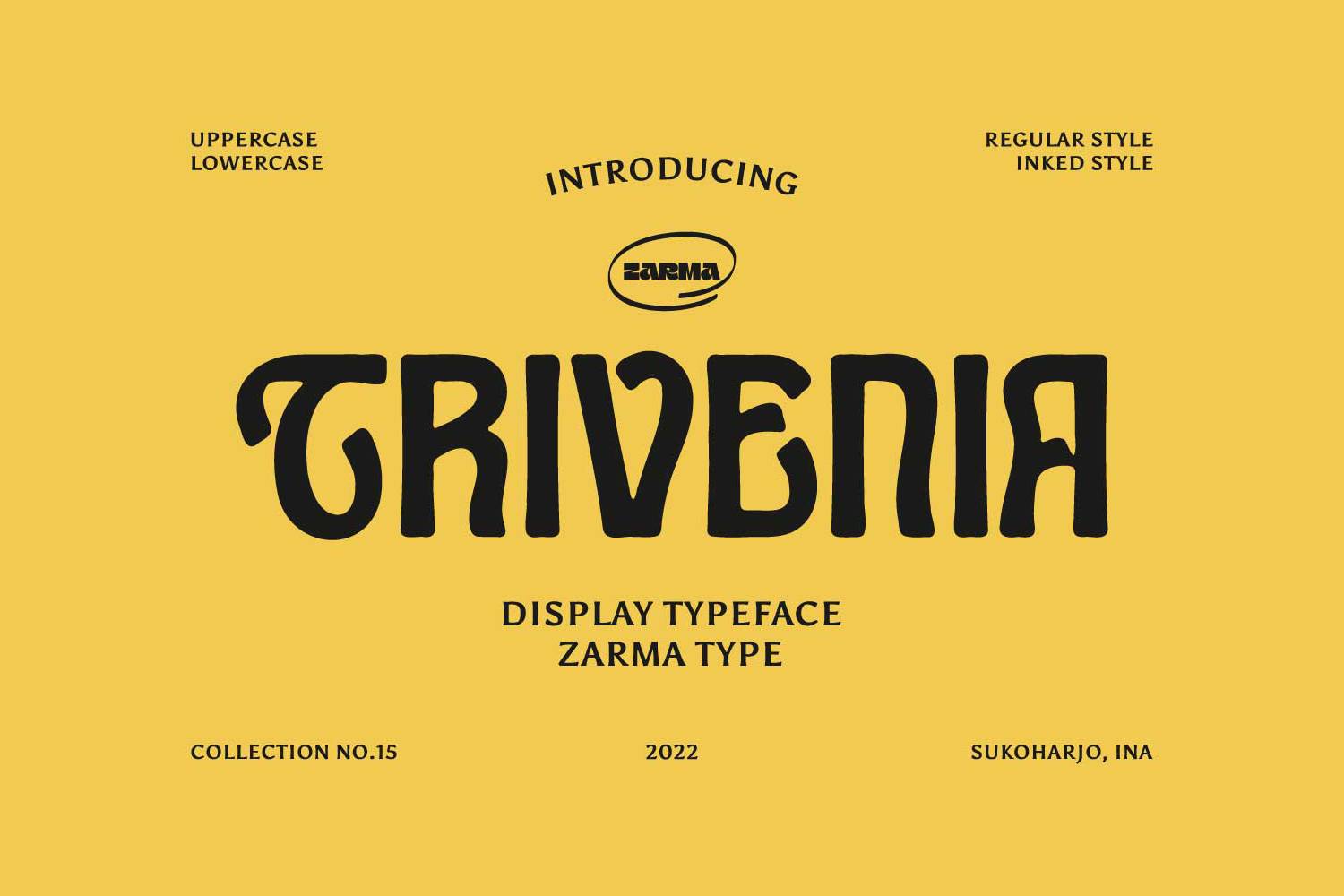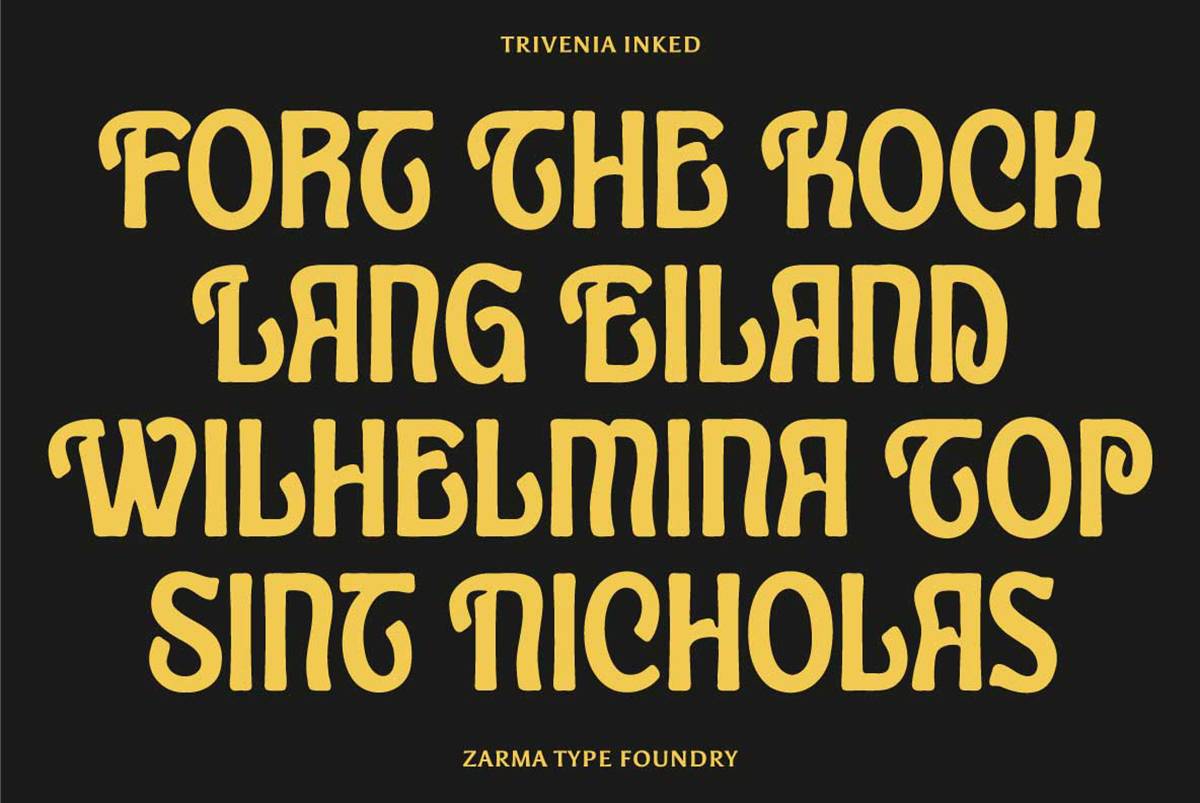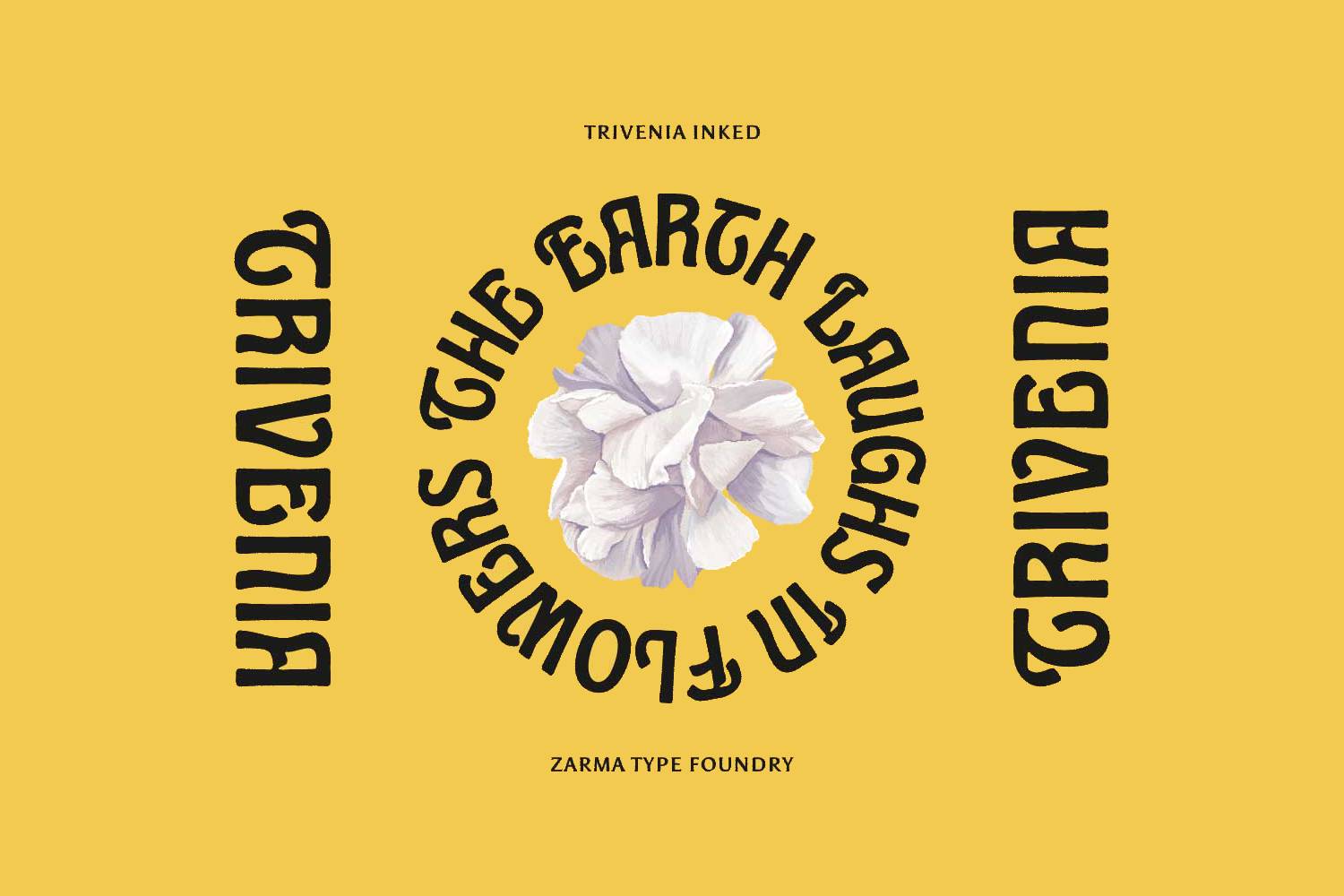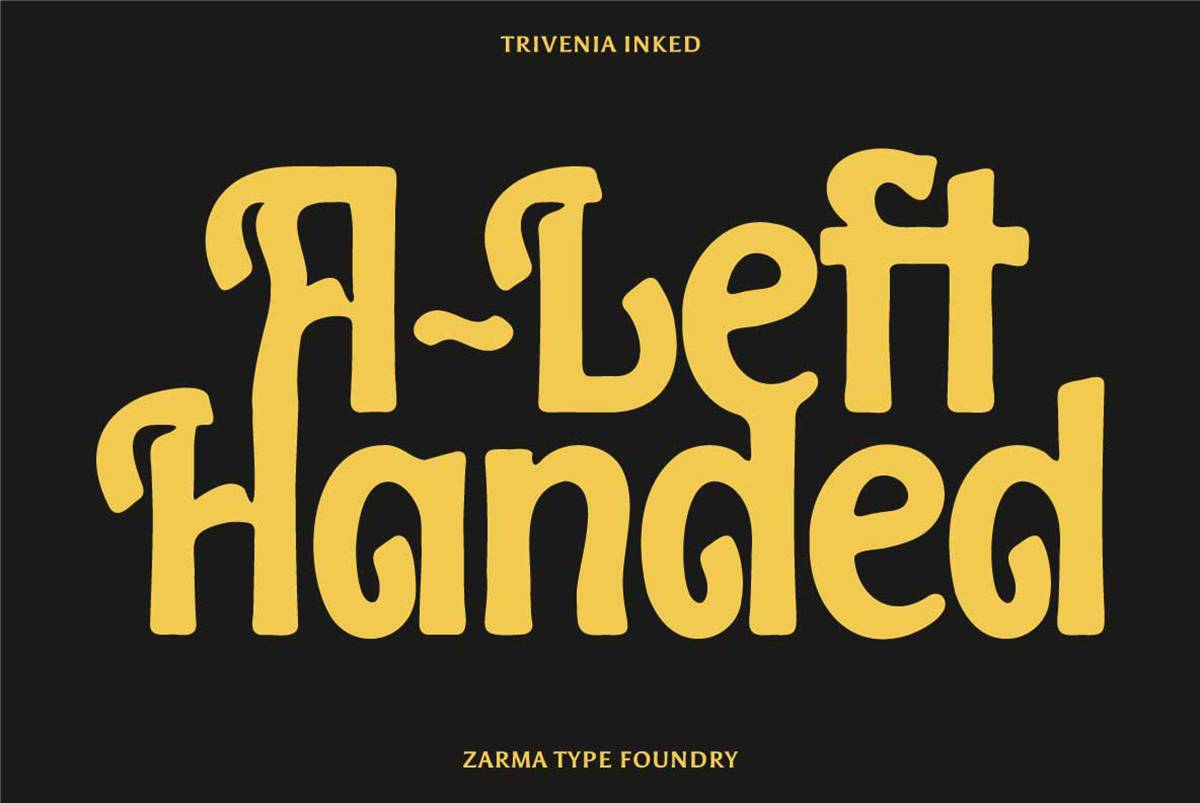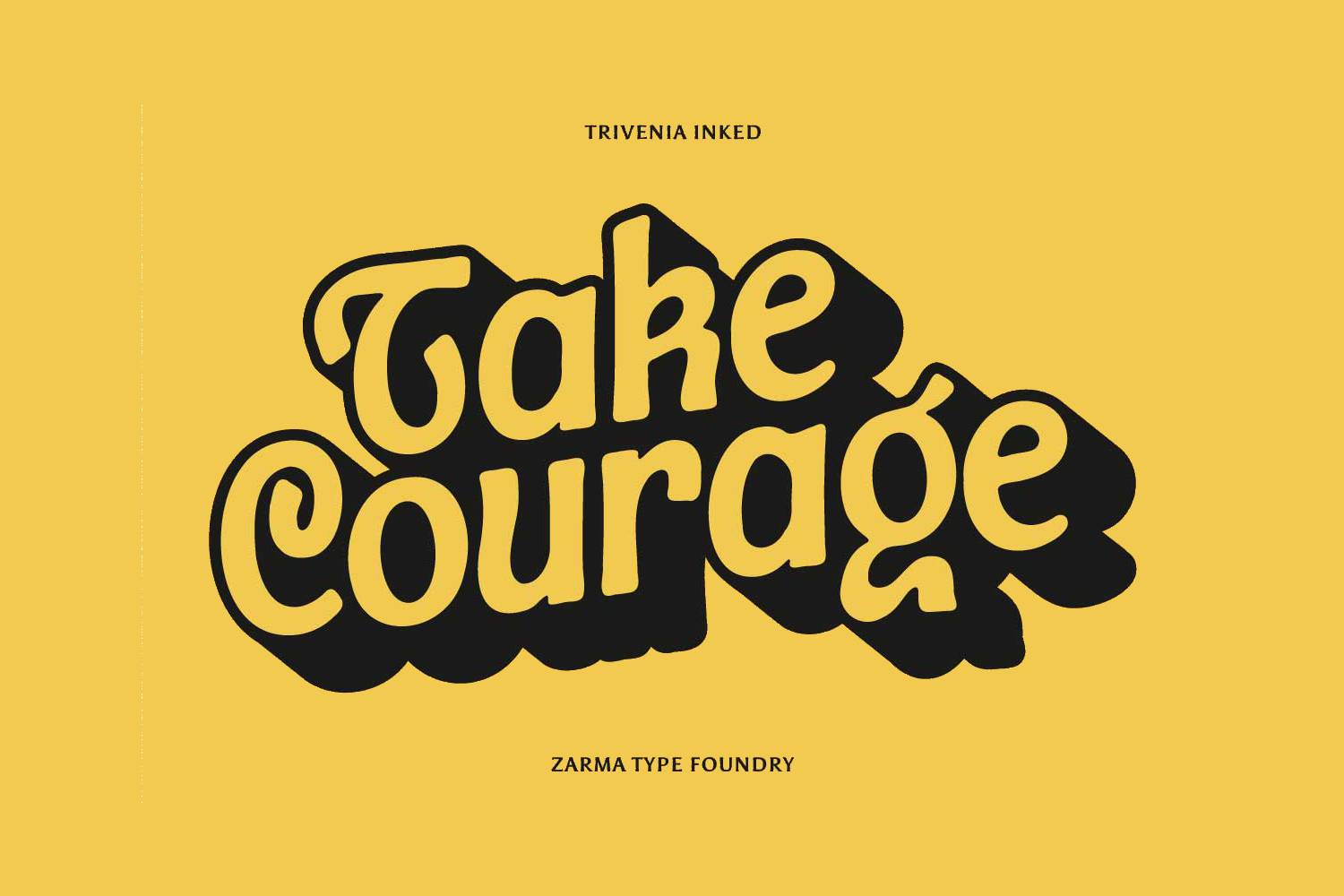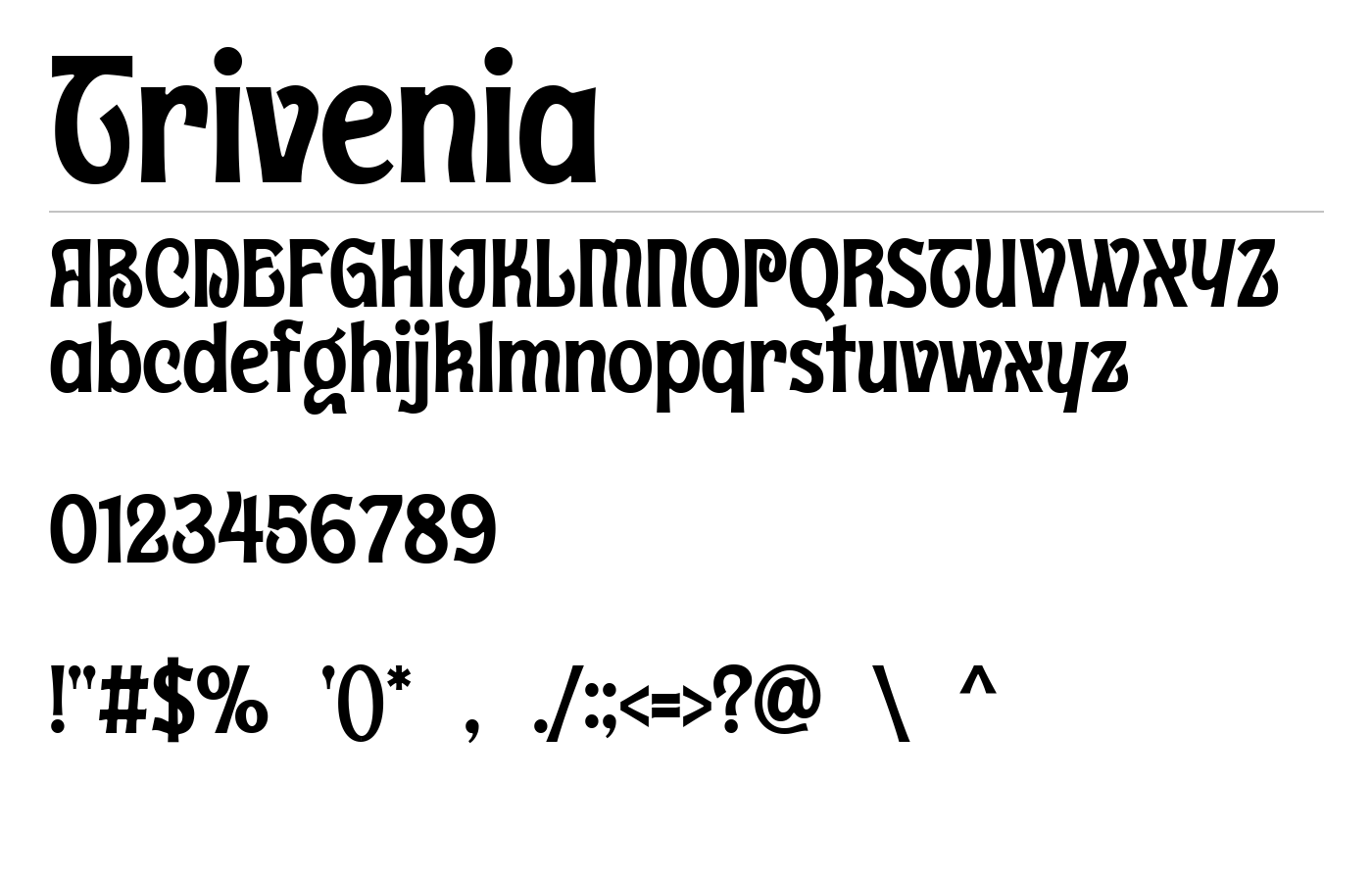
Trivenia is a bold, playful serif typeface with unique, slightly condensed letterforms that feature an artistic, hand-crafted feel. Its moderate contrast and quirky shapes give it a friendly yet distinctive personality, making it ideal for creative logos, eye-catching headlines, and packaging that seeks a memorable and approachable style. This font works well where a warm, informal touch is desired without losing readability or impact.
Trivenia Font
About Trivenia Font
| Font family | Trivenia Font |
| Designer | Azzam Ridhamalik |